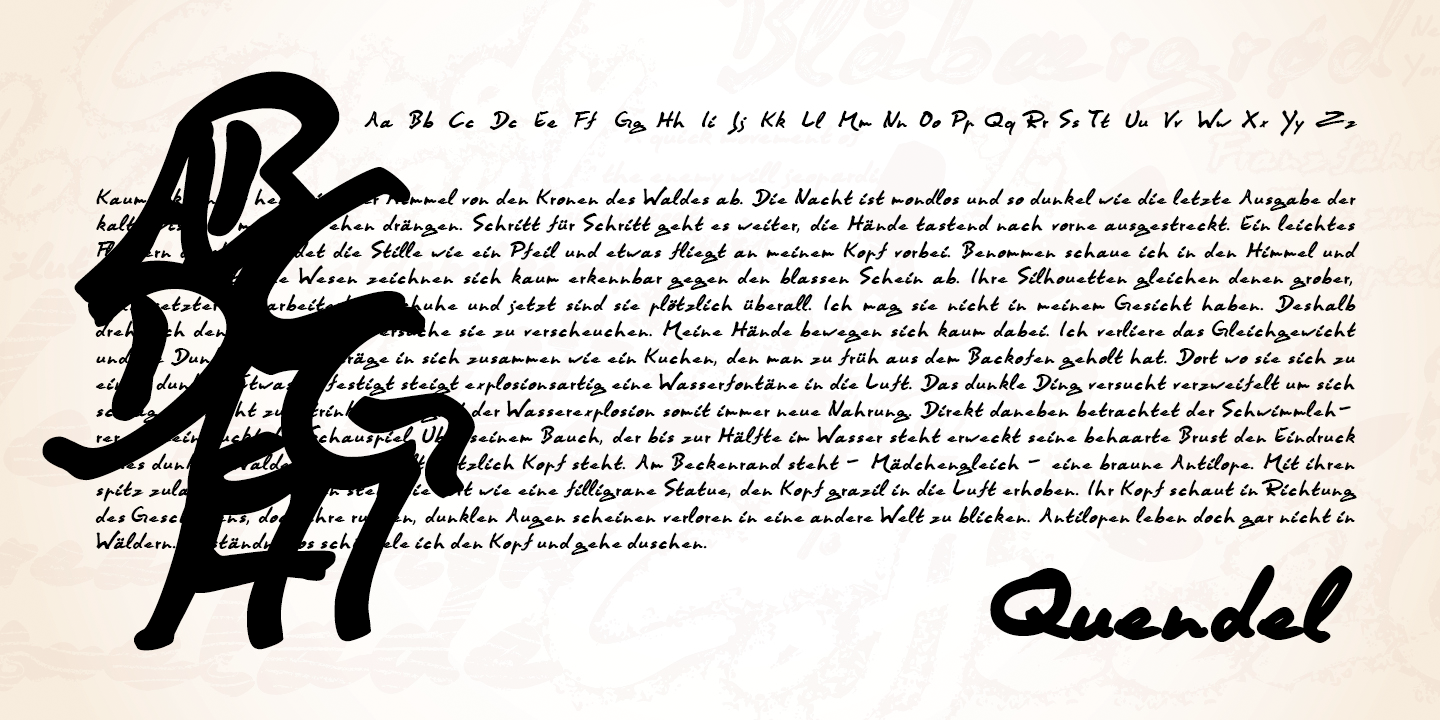
Quendel Font is perfect for organic herbal product packaging, natural wellness brand identities, botanical garden signage, artisan tea company logos, eco-friendly cosmetic labels, holistic health center materials, farm-to-table restaurant branding, and sustainable lifestyle communications.
What makes Quendel Font truly exciting is its enchanting ability to capture the pure essence of natural beauty and botanical harmony through delicately crafted letterforms that evoke the gentle growth patterns of herbs and wildflowers. This captivating typeface features organic curves and subtle flourishes that create an immediate connection to nature's wisdom and healing properties, making it the perfect choice for brands celebrating natural wellness, sustainable living, and the therapeutic power of botanical traditions.
The Quendel Font family includes regular, light, bold, and script variations, complemented by botanical ornaments and nature-inspired alternates that enhance the herbal atmosphere, providing designers with comprehensive tools for creating authentic natural brand experiences and wellness-focused communications that resonate with health-conscious audiences.
Natural wellness brands and organic businesses will discover that Quendel Font Free Download transforms ordinary product messaging into compelling invitations to embrace nature's healing wisdom and sustainable lifestyle choices. This versatile typeface excels in both intimate product labeling and larger environmental applications, maintaining its botanical character while communicating trust and authenticity across all natural contexts.
The font's organic construction demonstrates careful attention to preserving natural growth rhythms while ensuring professional quality standards. From herbal supplement packaging to wellness center signage, this nature-inspired typeface delivers consistent botanical charm while providing the reliability needed for diverse health and wellness applications. Natural brands appreciate how this font effortlessly communicates purity, healing, and distinguished American botanical design excellence through superior herb-inspired typography.